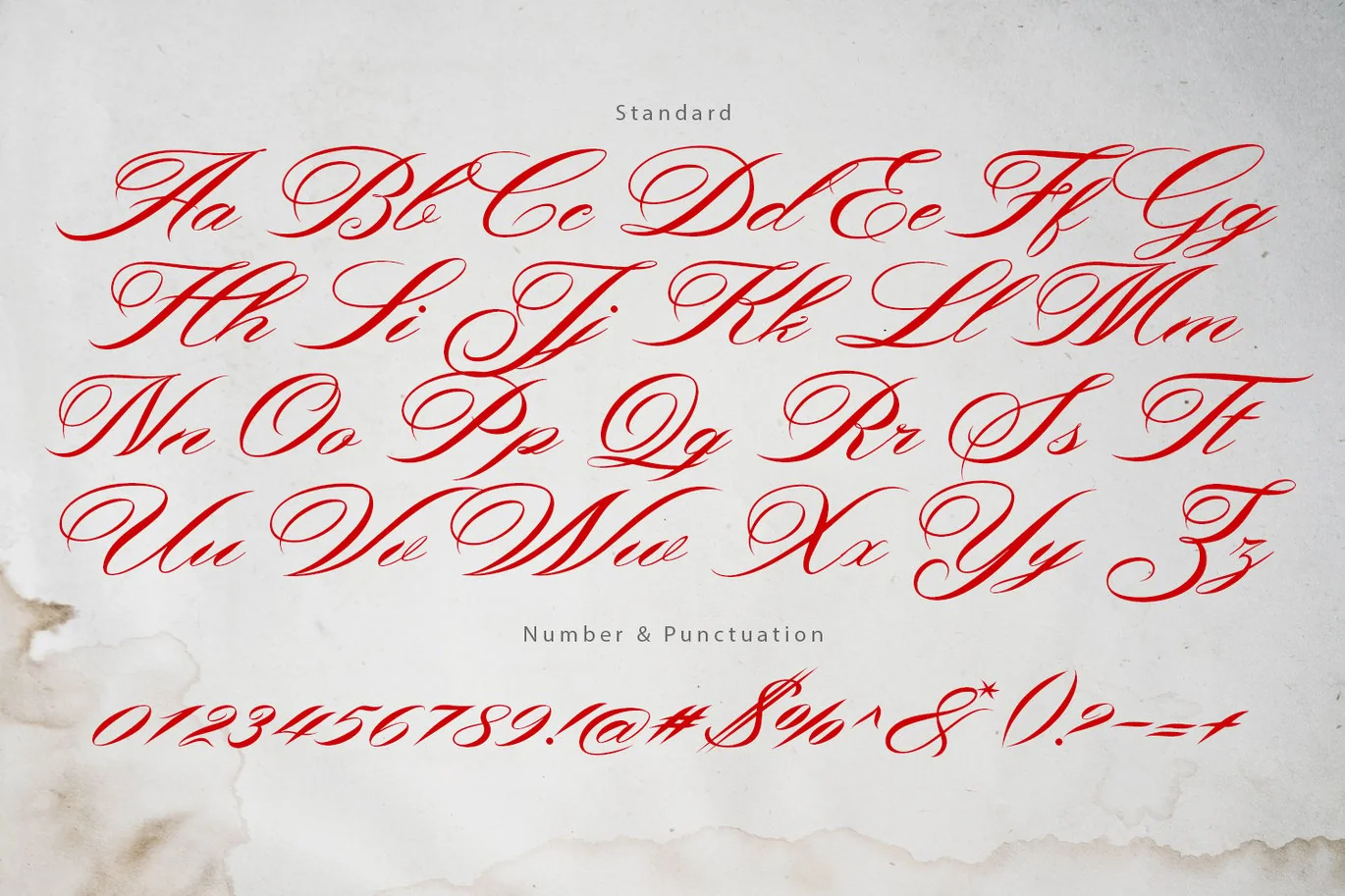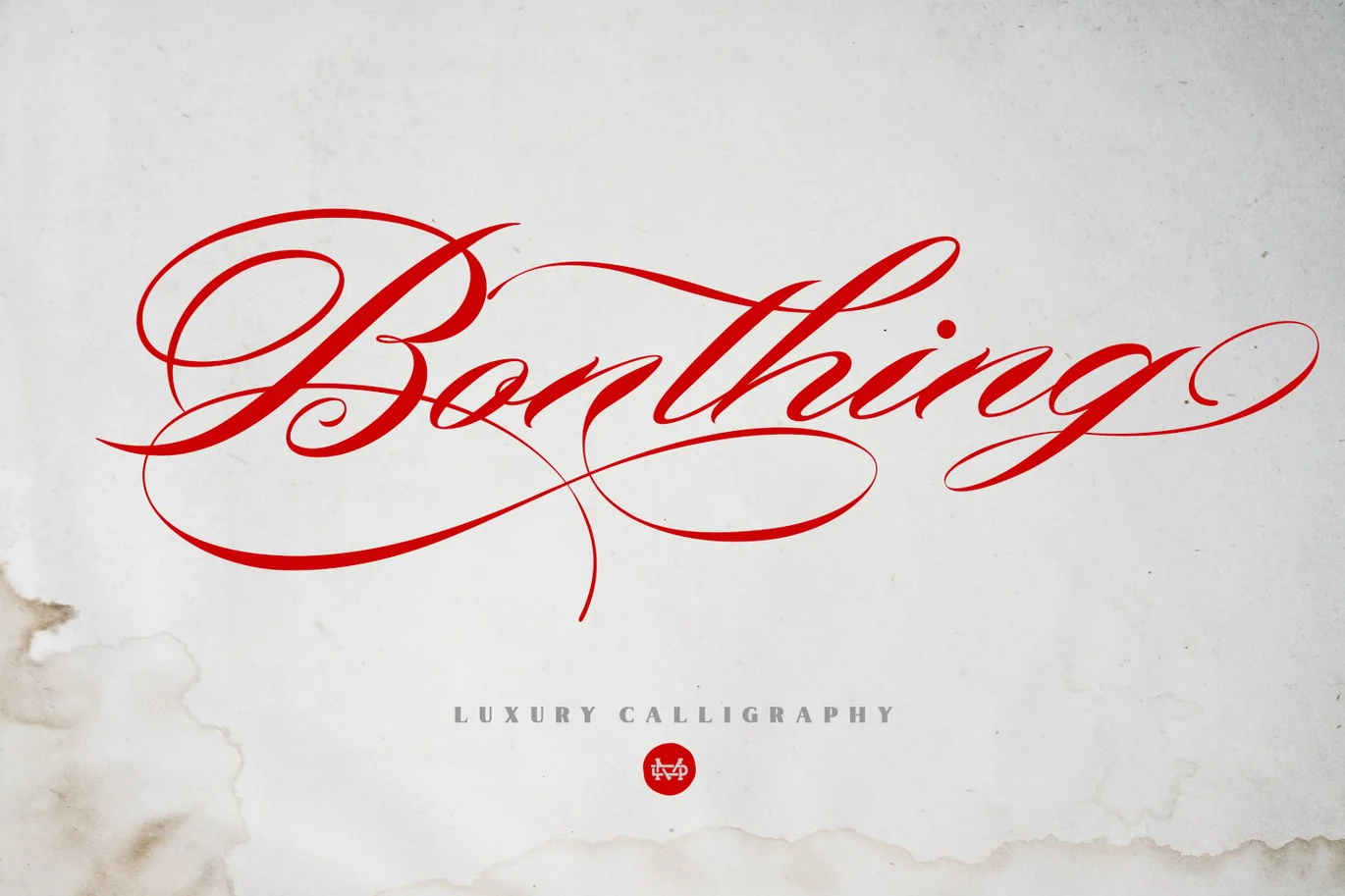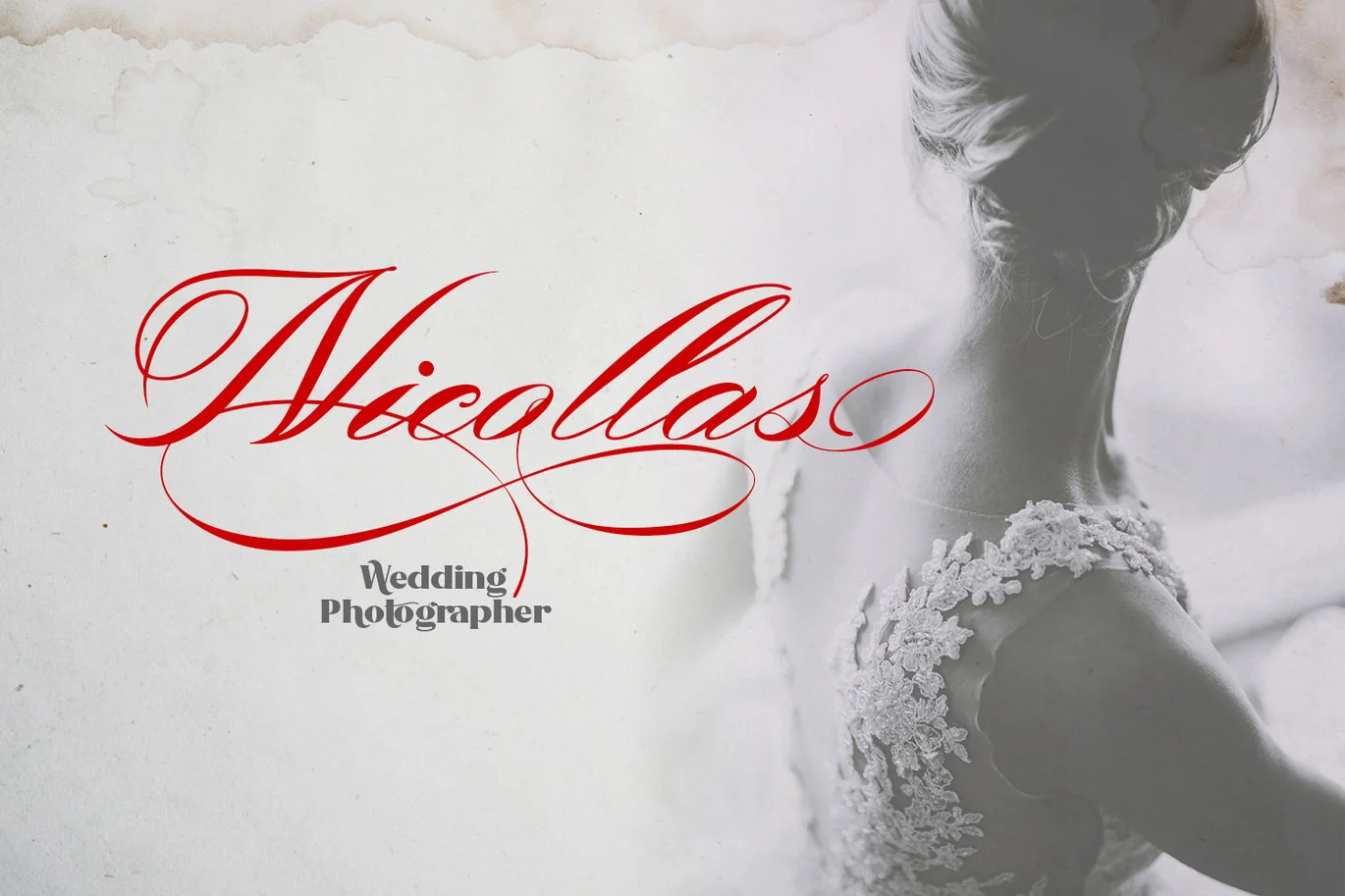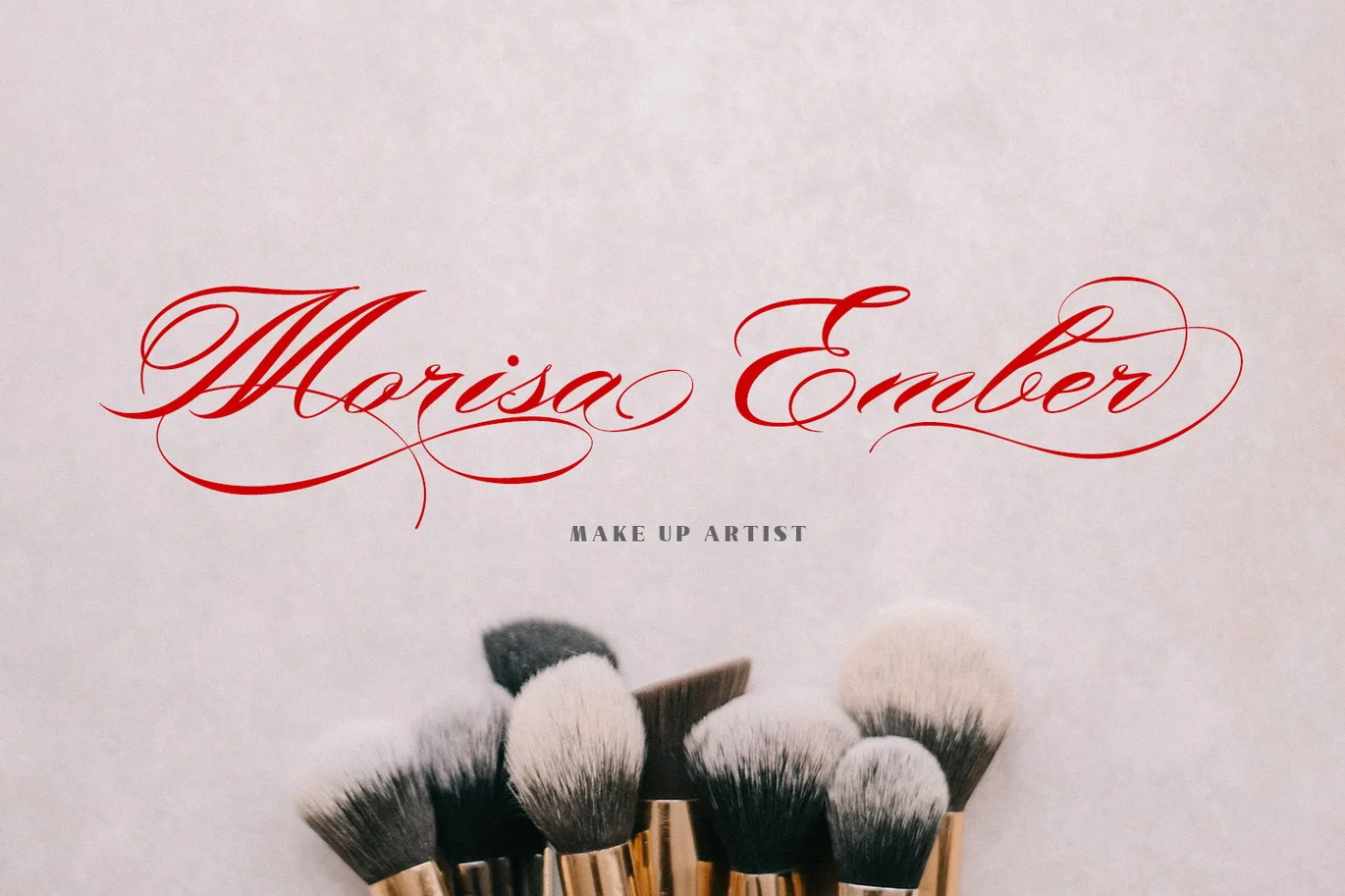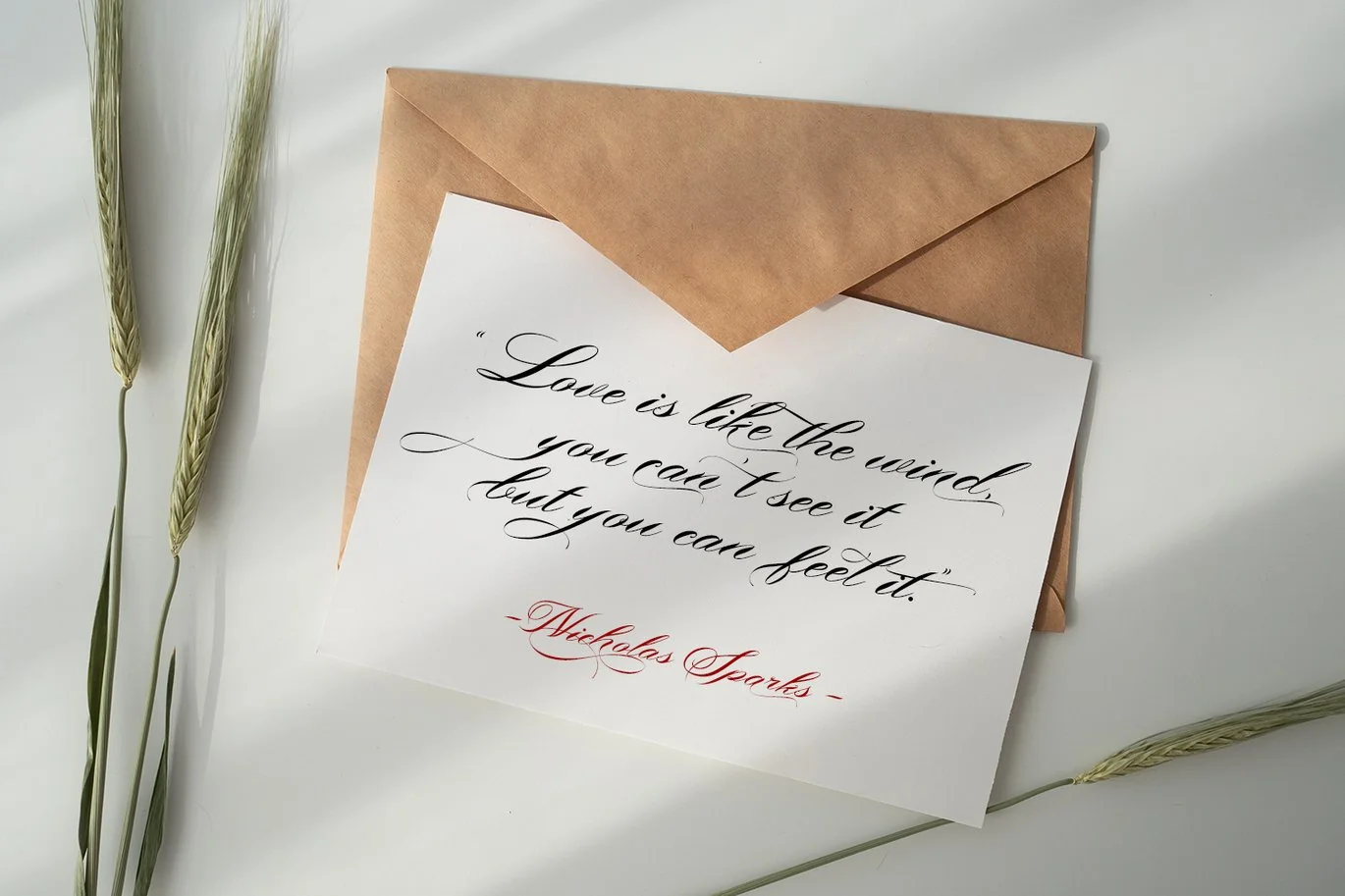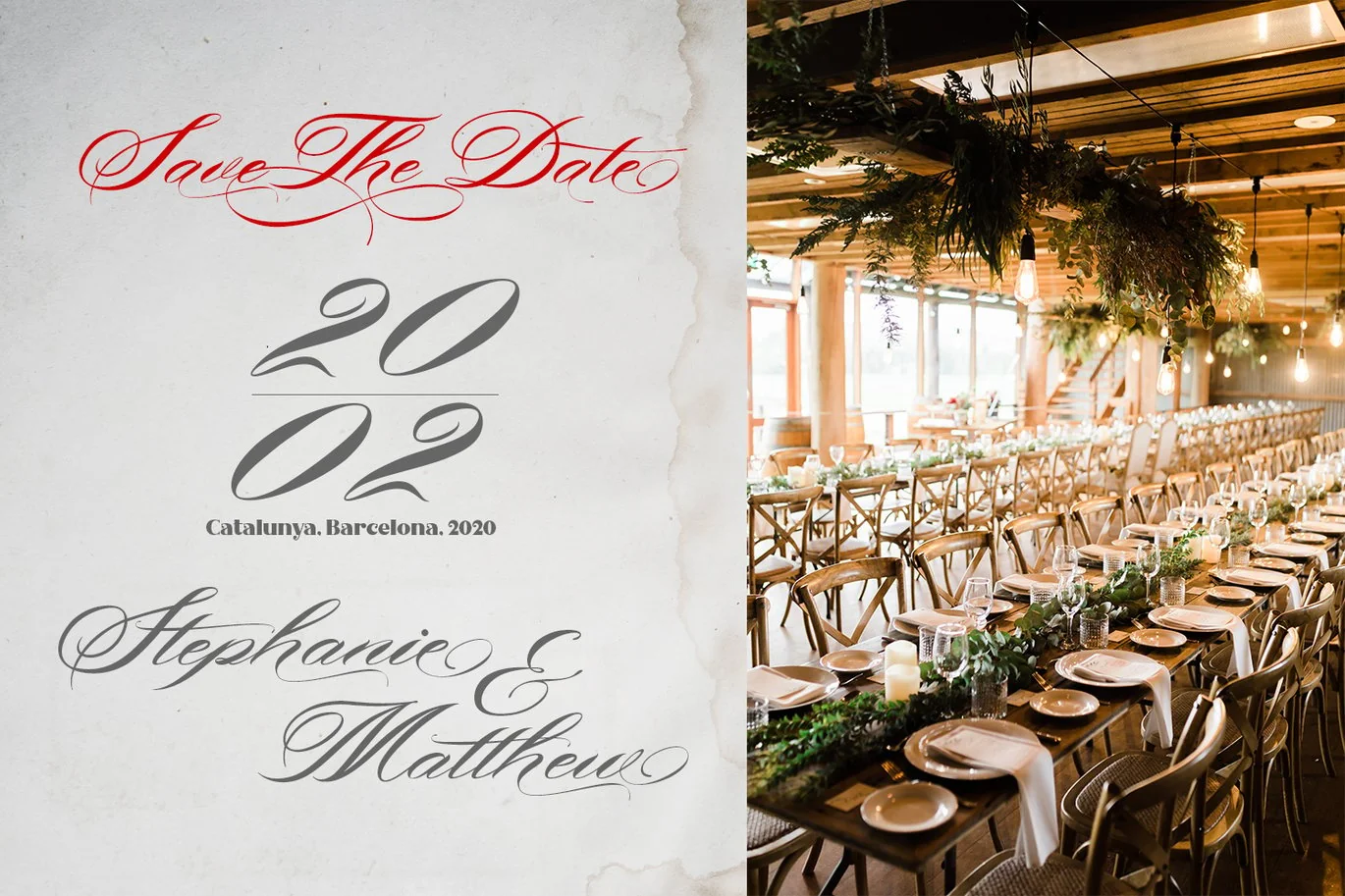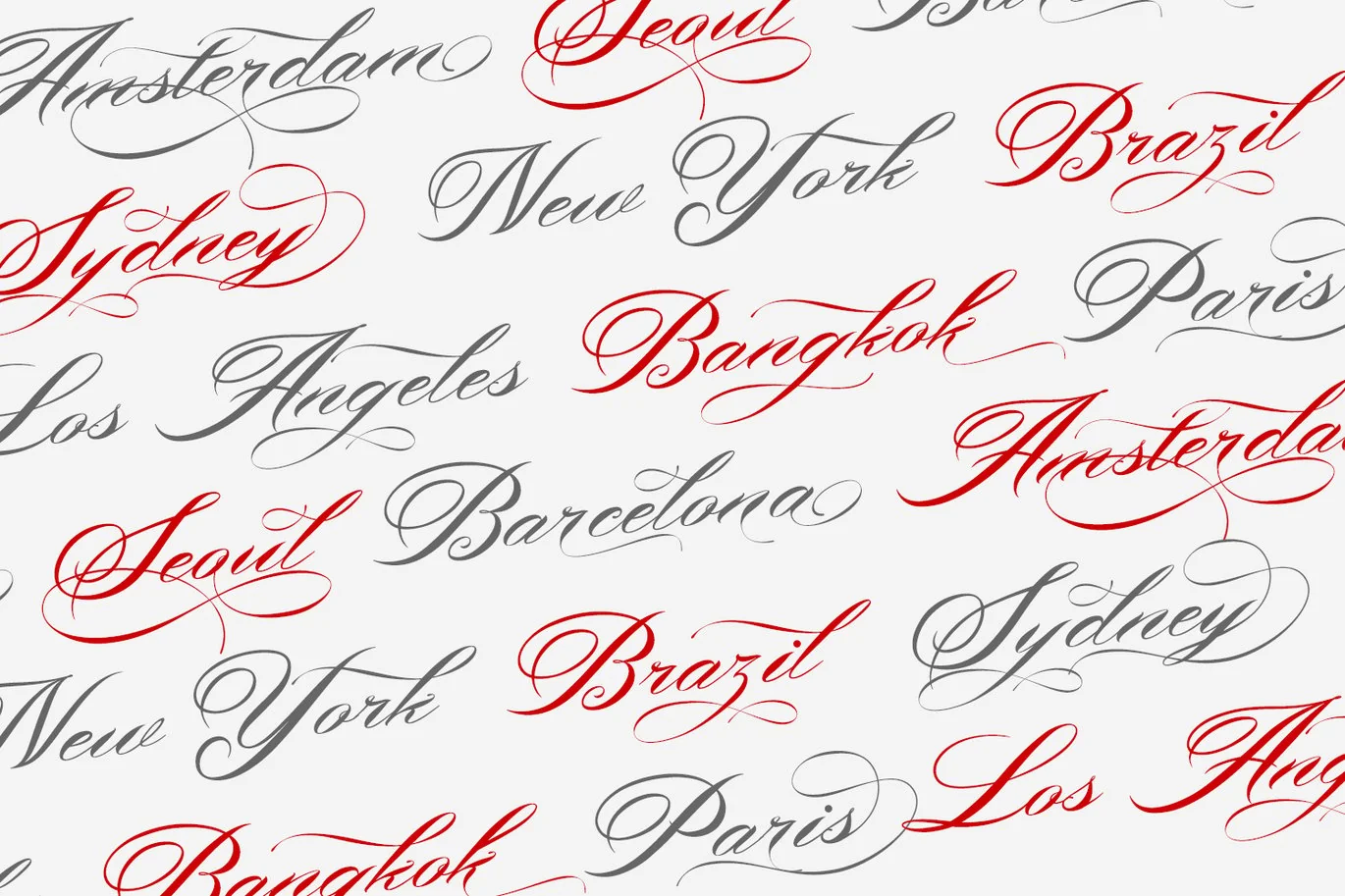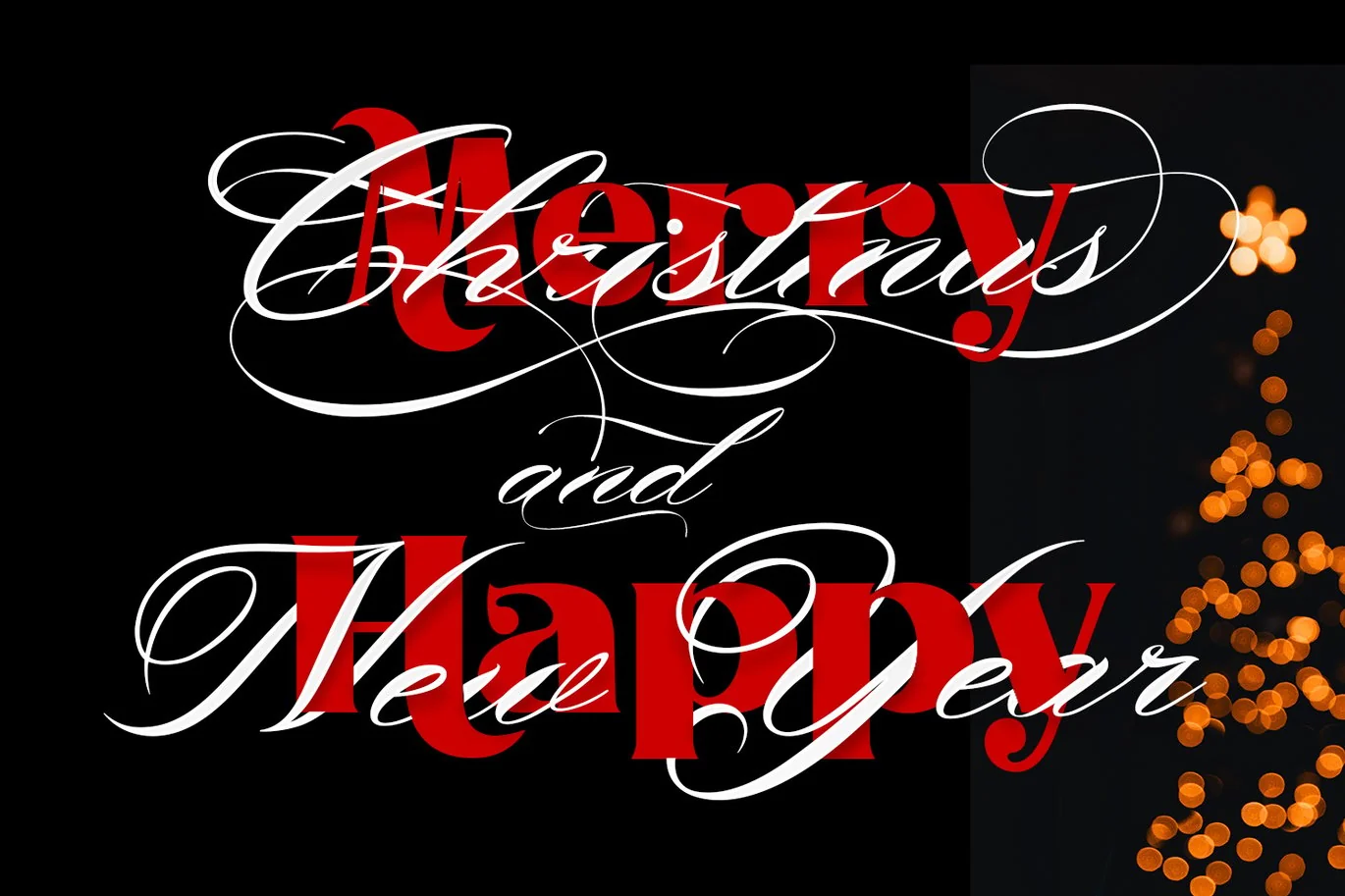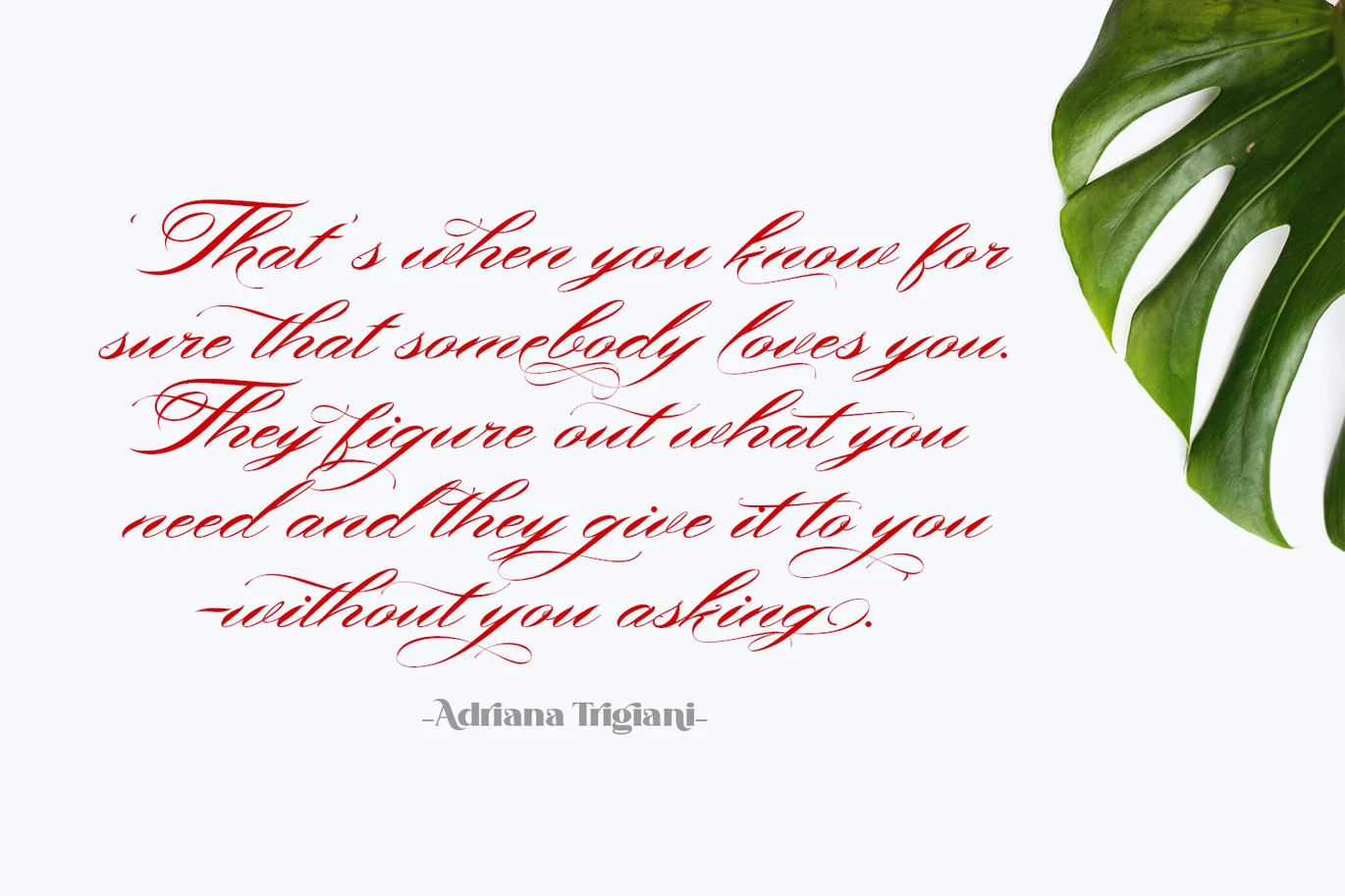
Bonthing Calligraphy Font
Bonthing is a luxury calligraphy with beautiful ligatures and a lot special alternative glyphs so you can create a lots with layouts and compositions. Bonthing perfect for poster design, book covers, merchandise, fashion campaigns, newsletters, branding, advertising, magazines, greeting cards, album covers, and quote designs and more.
Feature
- Number & Symbol
- International Glyphs
- Alternative